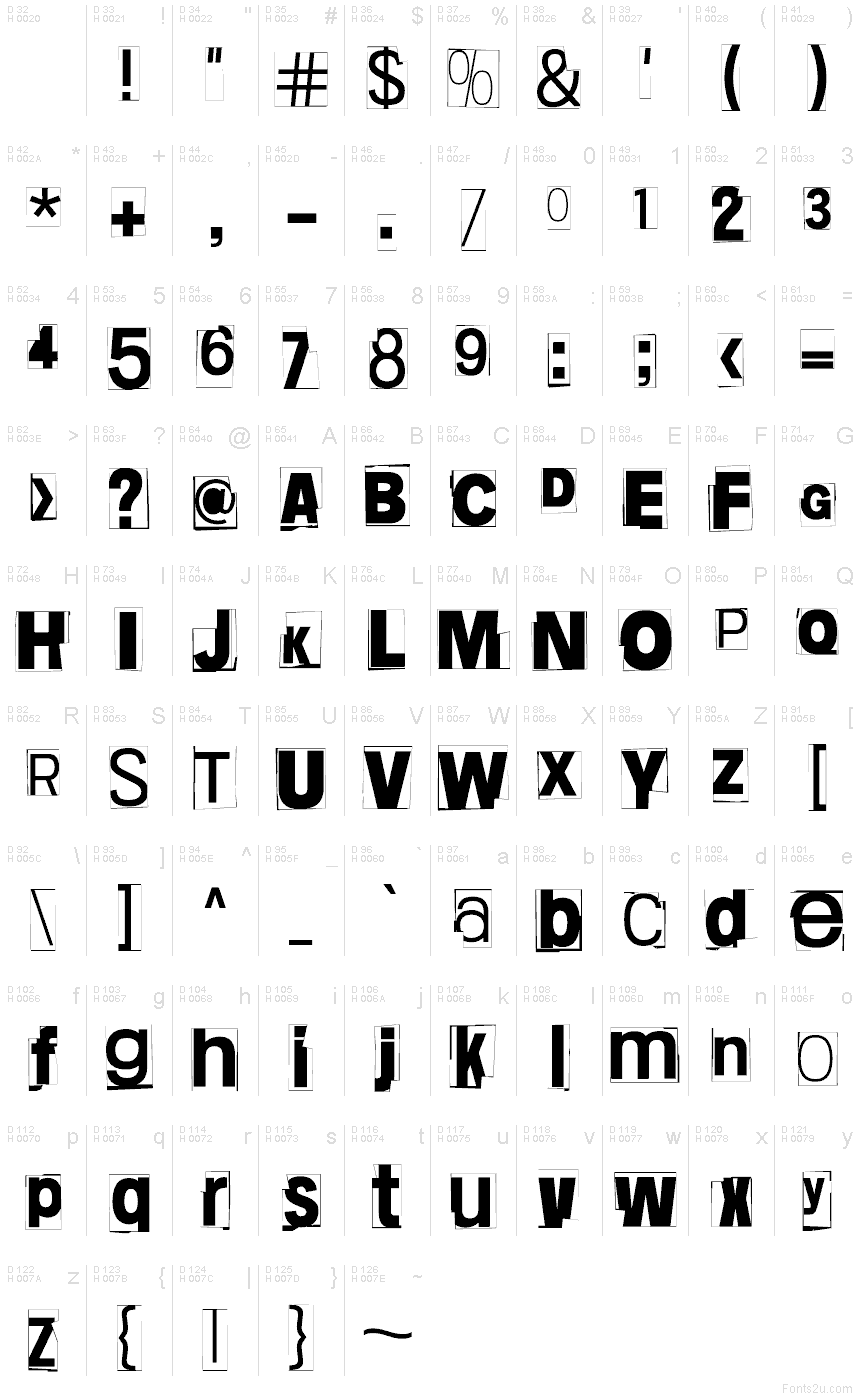
Nuyaghe. Just Nuyaghe. Two
Nuyaghe. Just Nuyaghe font, created by junkohanhero, is a display, distorted typeface that has a bold weight and a futuristic appearance. Various build methods gave birth to such an unusual design which doesn’t repeat typical standards from other usual fonts. As its elements are minimalistic with sharp edges, this typeface has a technological feel and modernist vibe.
Partly structured yet geometric-looking, Nuyaghe. Just Nuyaghe can look incredible in movie titles, book covers, posters and other artistic activities or artworks. It is also applicable to be included in e-book covers as well as package designs or posts and stories on social media platforms.